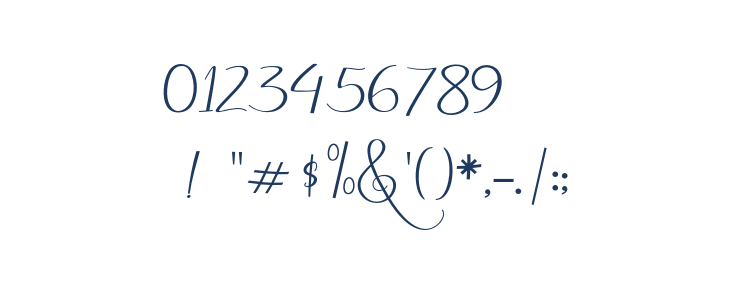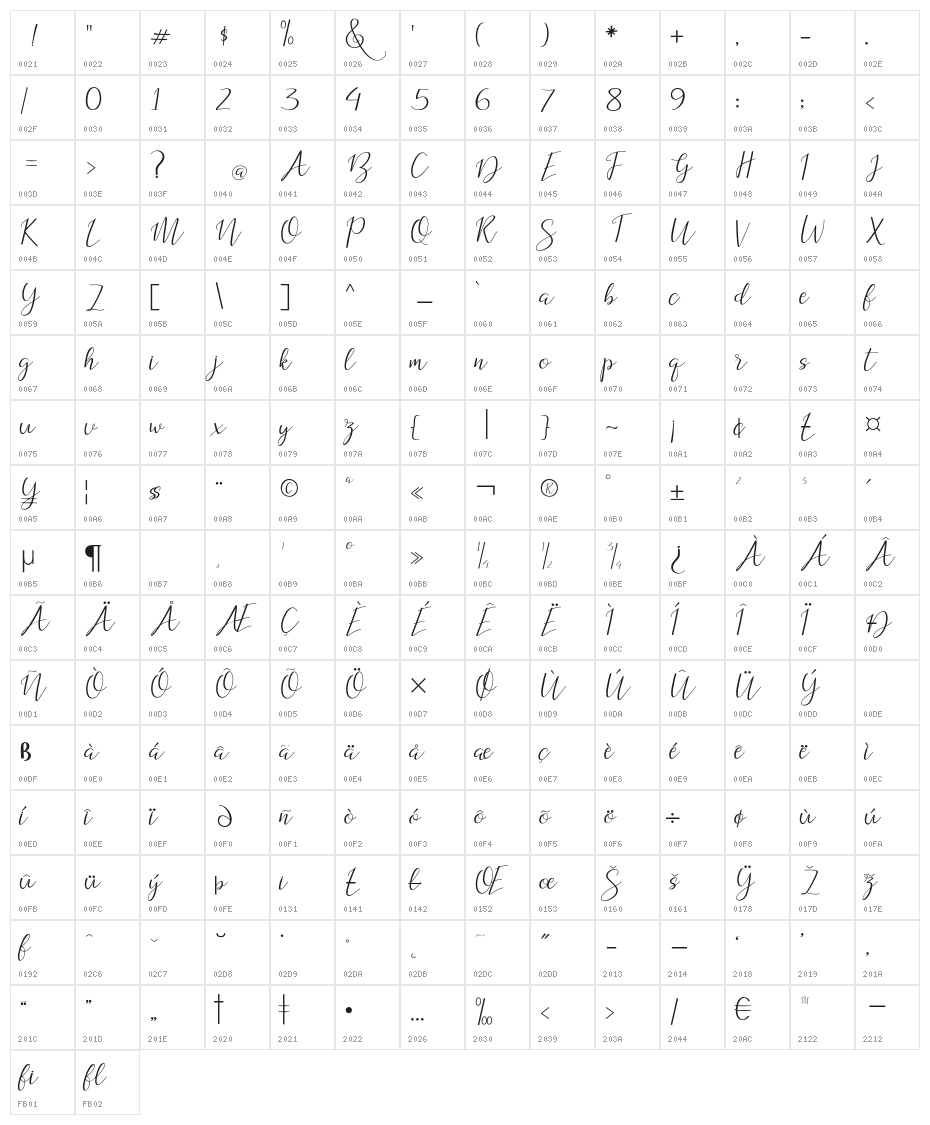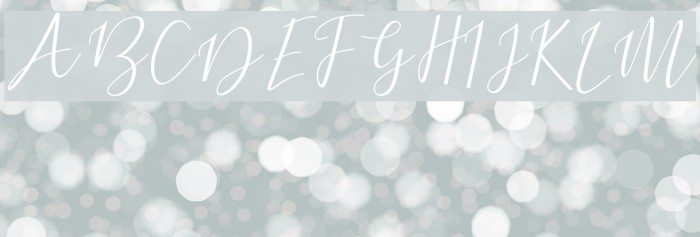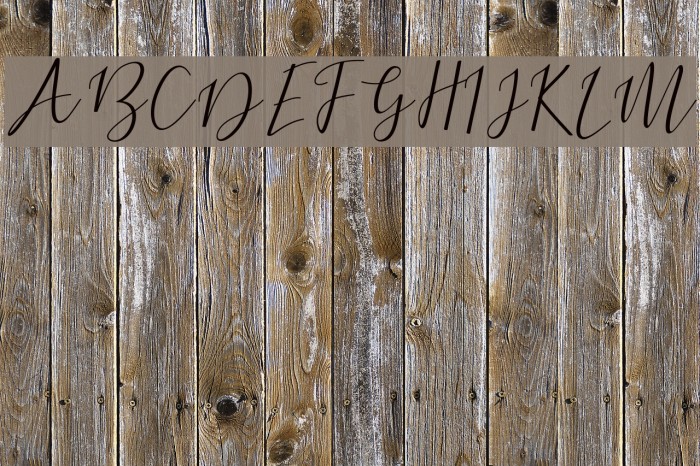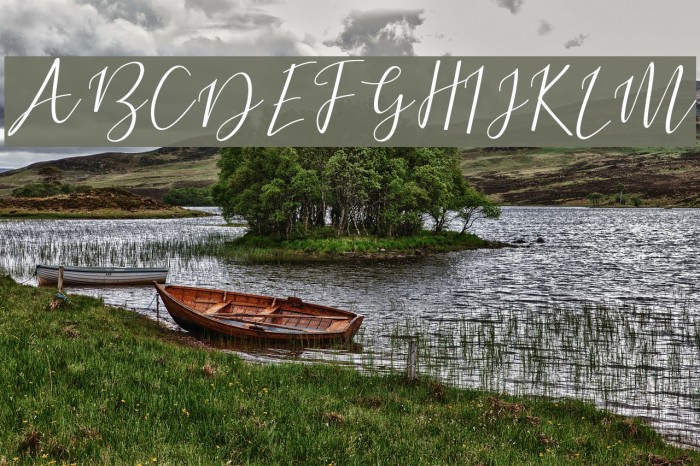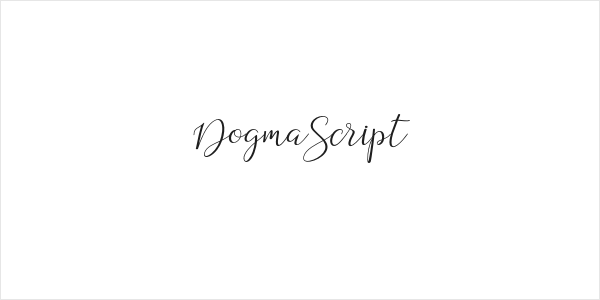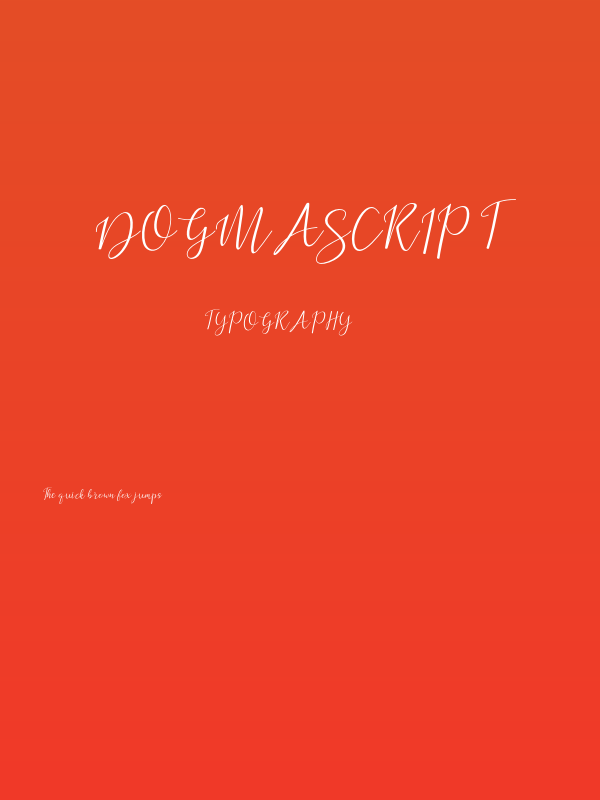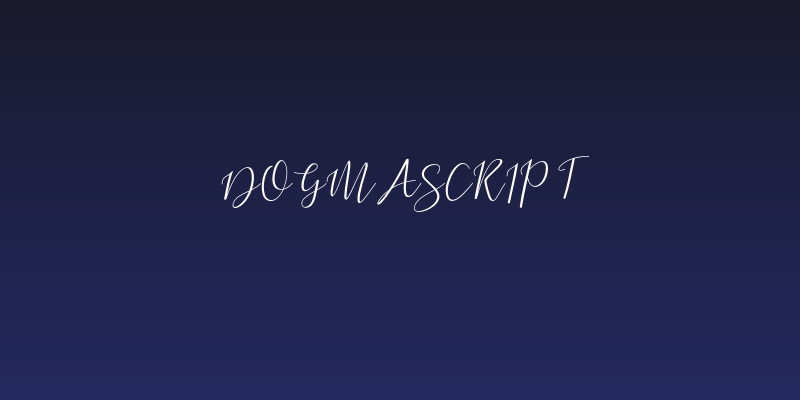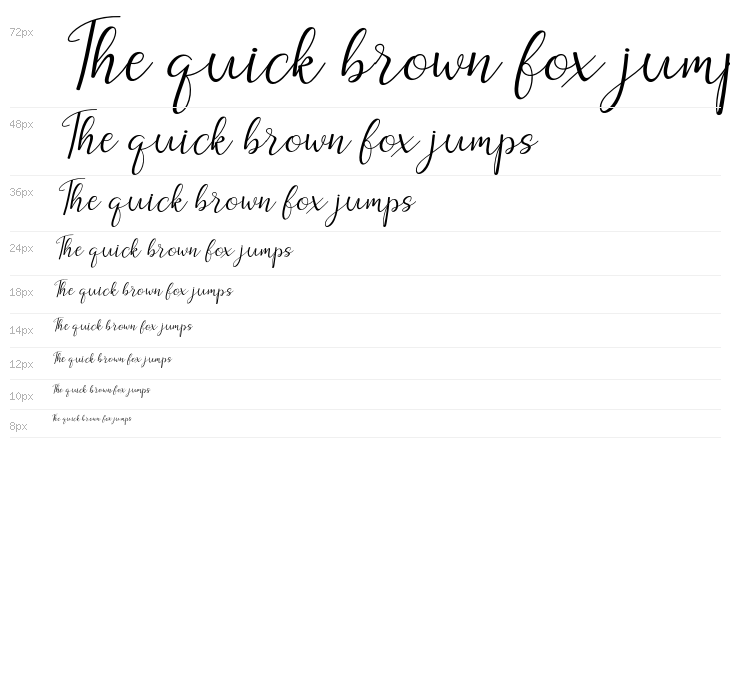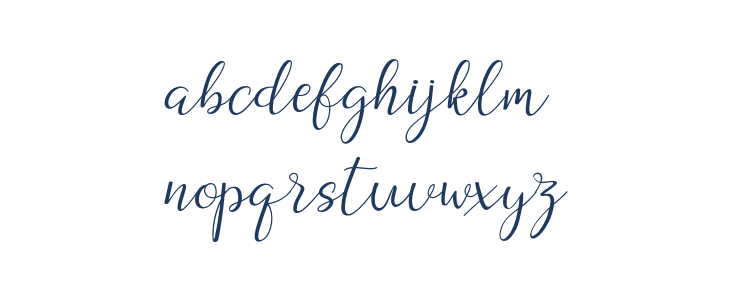
DogmaScript Font
DogmaScript Description
This elegant script font features a flowing, cursive style with smooth, connected strokes that give it a sophisticated and graceful appearance. The uppercase letters are tall and slightly slanted, adding a touch of formality, while the lowercase letters maintain a consistent flow, enhancing readability. The numerals are well-proportioned and align seamlessly with the overall design. Special characters are thoughtfully integrated, maintaining the font's cohesive aesthetic. This font's delicate curves and refined structure make it suitable for projects that require a touch of elegance and class.
| Overall Style | Elegant, Sophisticated |
| Use Case | Headlines, Invitations, Branding |
| Proposed Projects | Ideal for wedding invitations, elegant branding, personal stationery, and upscale packaging. |